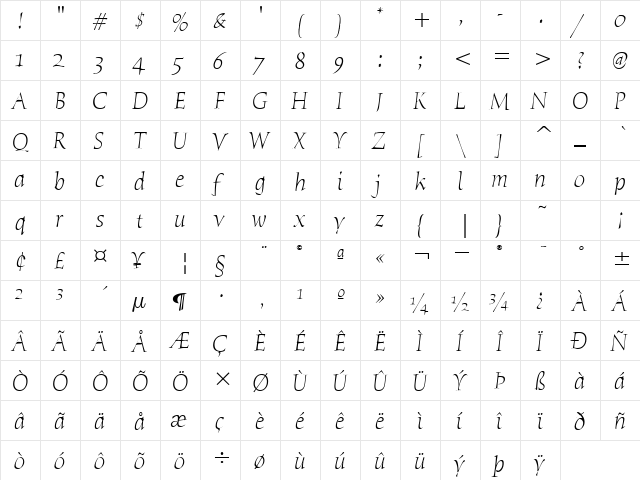
Humana Serif ITC TT LightItalic Font Preview
Design Context for Humana Serif ITC TT Typeface
Humana Serif ITC TT brings classic typographic sensibility to the table — its serifs and measured letterforms reflect centuries of print heritage. Its italic angle brings a sense of urgency and motion to the letterforms. The delicate stroke weight brings airiness and refinement to layouts.
Pro Tip: Use Humana Serif ITC TT with generous line-spacing for the most refined reading experience — its light weight benefits from room between lines.